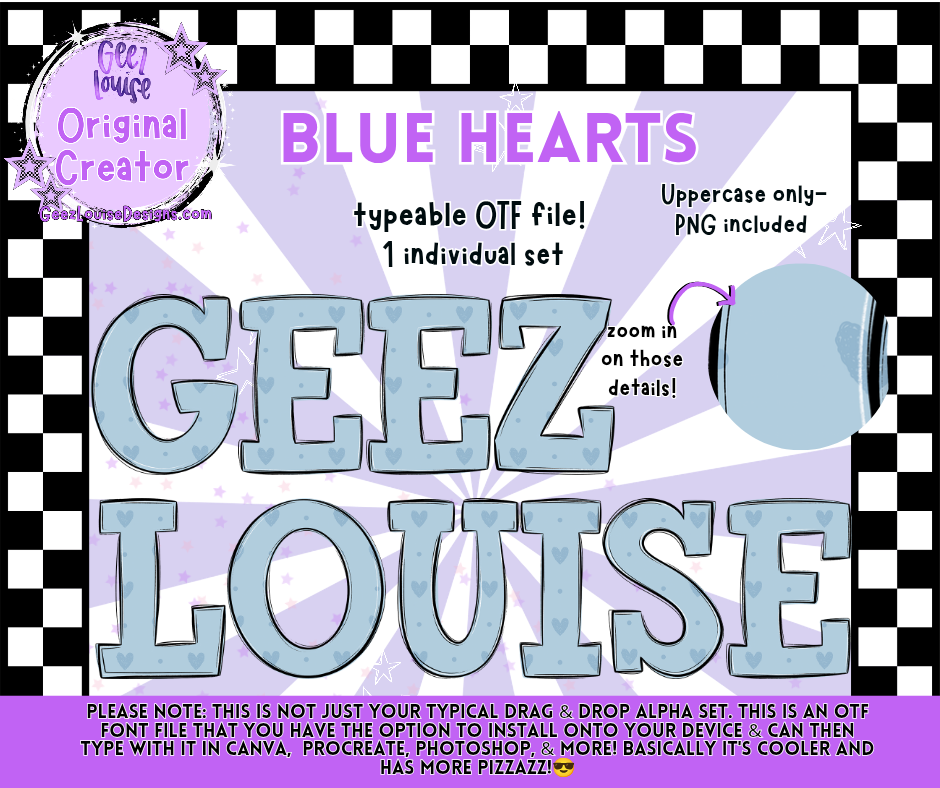
Blue Hearts (OTF Font + PNGs)
Sweet, punchy, and heartbreak-friendly—Blue Hearts is your go-to alpha for dreamy chaos. This uppercase-only OTF font is filled with blue heart patterns that pop against any background. Perfect for burnout merch, emotional branding, or just typing your feelings in style.
Why it slaps: This isn’t your typical alpha set—it’s installable, typeable, and dripping in boutique-grade emotion. Zoom in on those hearts… they’re heartbreak couture.